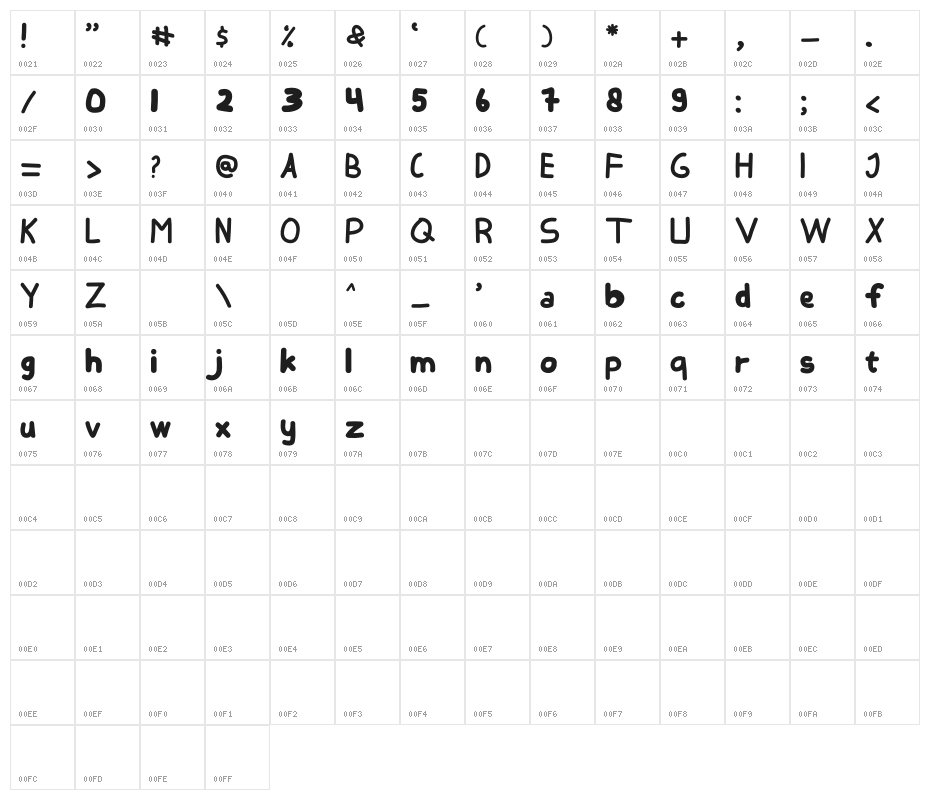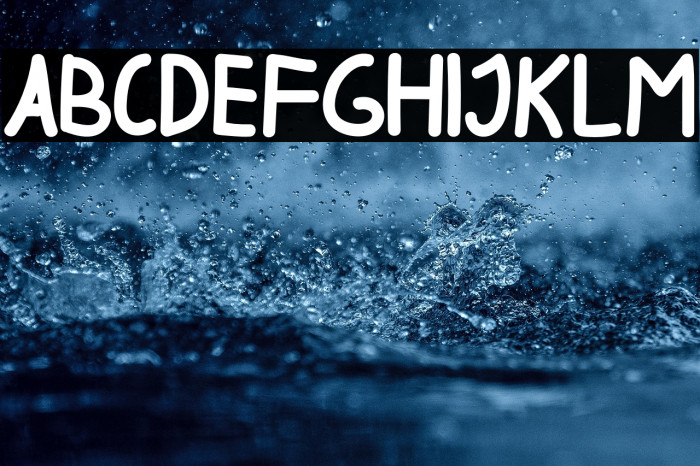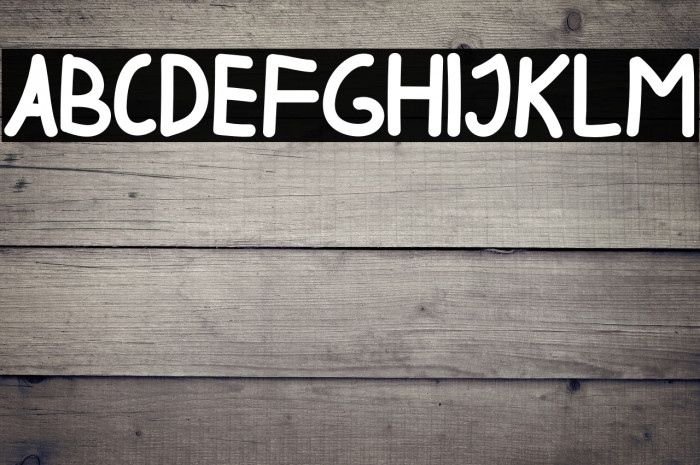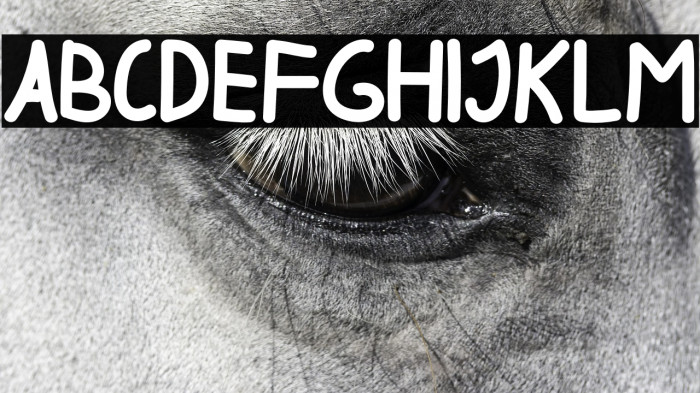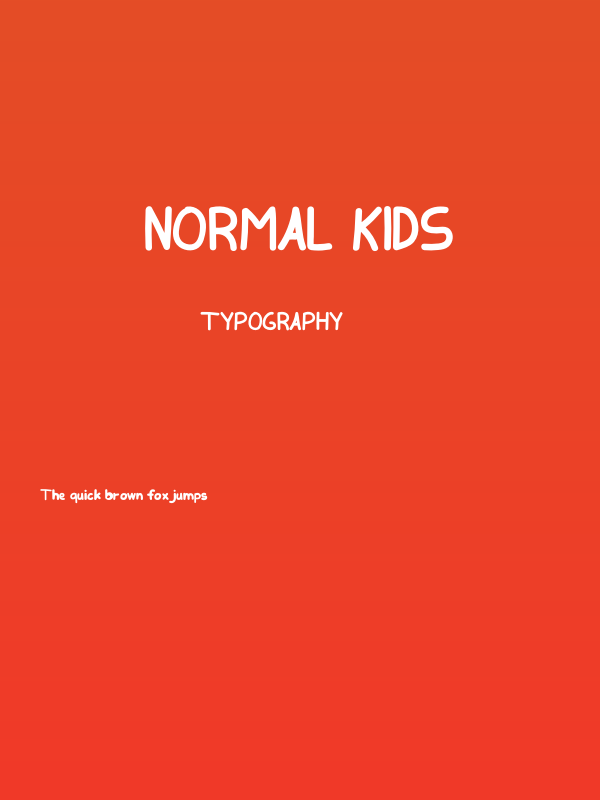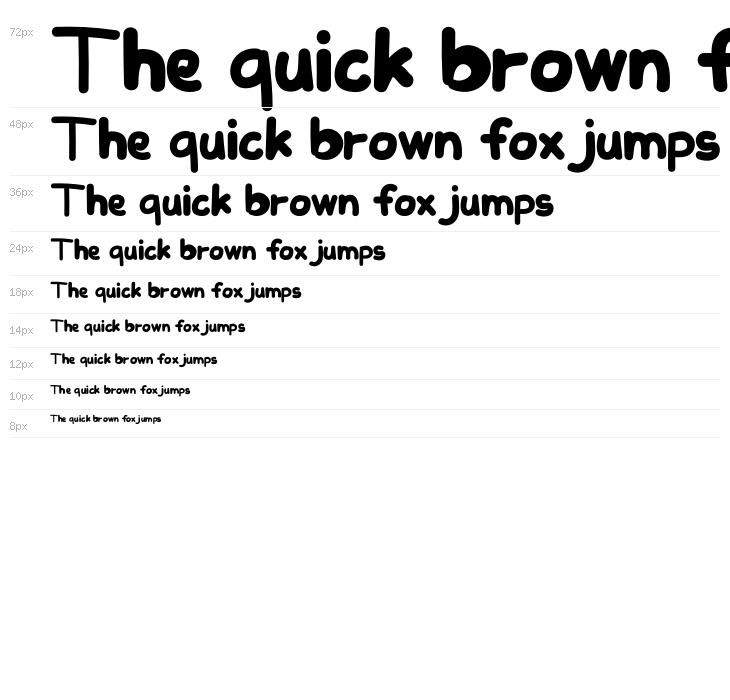
normal kids Font
normal kids Description
This playful and whimsical font features a hand-drawn style that exudes a sense of fun and creativity. The letters are bold and rounded, with a slightly uneven baseline that adds to its charm. The uppercase and lowercase characters maintain a consistent style, with a friendly and approachable appearance. Numbers and special characters are designed to match the playful aesthetic, making them suitable for a variety of informal and child-friendly applications. The font's overall look is reminiscent of handwriting, making it ideal for projects that require a personal touch.
| Overall Style | Playful |
| Proposed Projects | Ideal for children's books, educational materials, playful branding, and creative posters. |